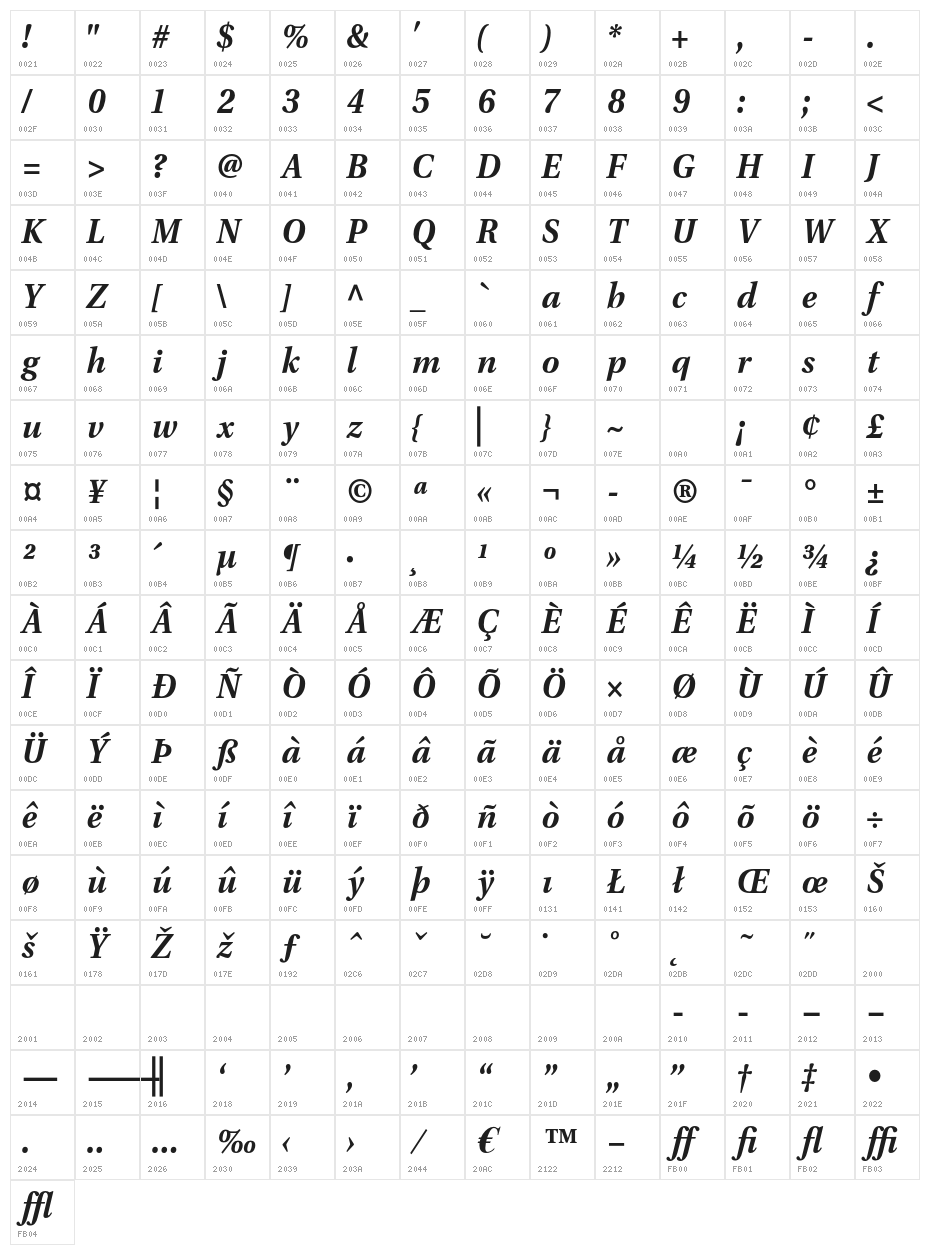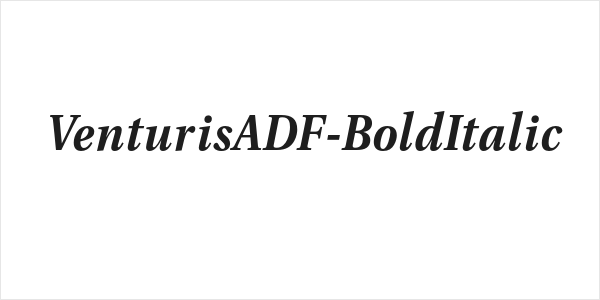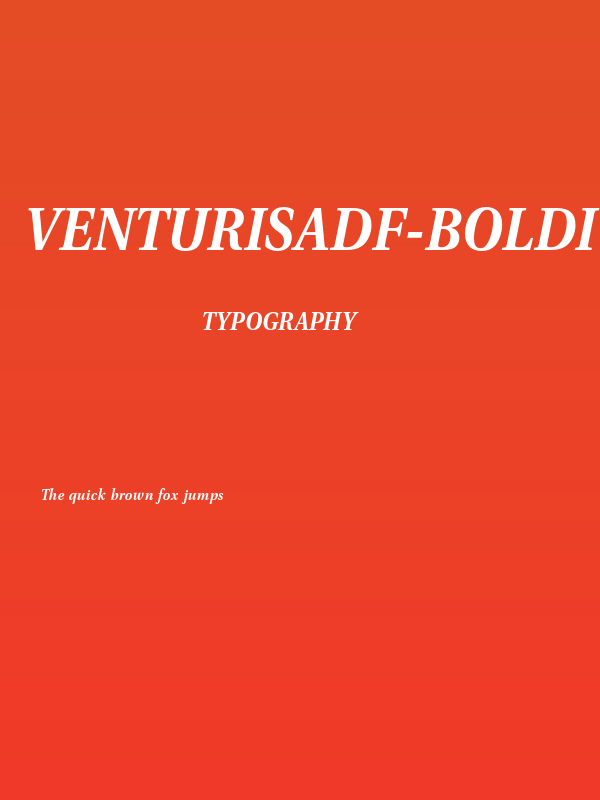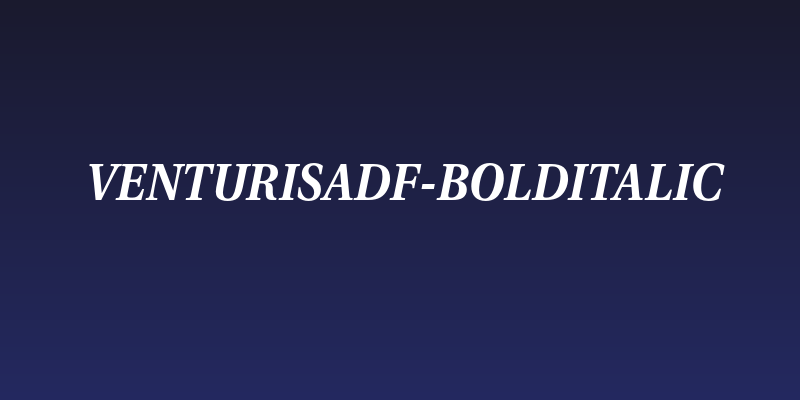
VenturisADF-BoldItalic Font
VenturisADF-BoldItalic Description
This font exhibits a classic serif style with a bold and italicized appearance, giving it a strong and elegant look. The characters are well-defined with a slight slant, enhancing readability while maintaining a sophisticated aesthetic. The uppercase letters are tall and commanding, while the lowercase letters are slightly more rounded, providing a balanced contrast. The numerals are clear and consistent, matching the overall style of the alphabet. Special characters are distinct and harmonize well with the rest of the font, making it versatile for various uses.
Overall StyleClassic
Use CaseHeadlines, Logos, Editorial design
Proposed ProjectsIdeal for book covers, formal invitations, branding, and editorial design.